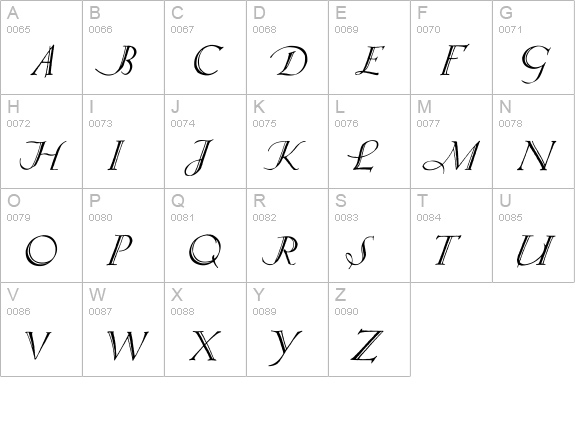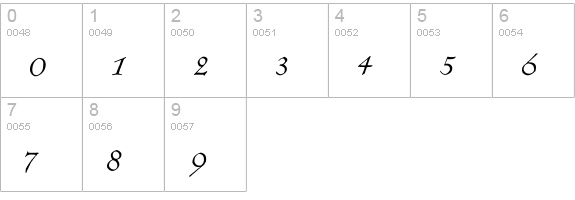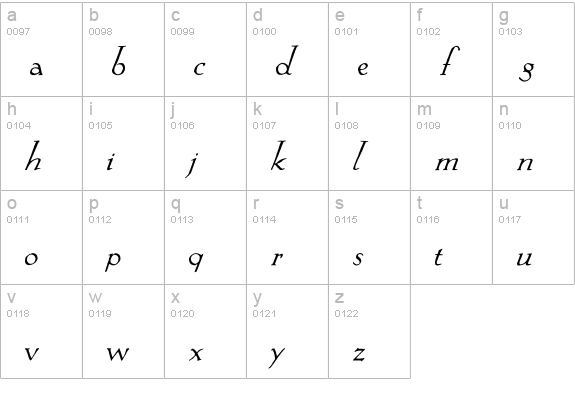
Introducing Springtime, a refreshing and vibrant font that perfectly captures the essence of the season. With its lively and playful curves, Springtime exudes a sense of joy and renewal, making it the perfect choice for any project that calls for a touch of whimsy. This delightful font offers a wide range of versatility, lending itself beautifully to everything from greeting cards and invitations to logos and branding materials. Its clean and legible letterforms ensure readability across various sizes and mediums, while its unique personality adds a touch of charm to any design. But what truly sets Springtime apart is not just its stunning aesthetics, but also its accessibility. This font is freely available to download at FontsMarket.com, allowing designers, creatives, and enthusiasts alike to effortlessly access and incorporate it into their projects. Whether you're a seasoned professional or a passionate hobbyist, Springtime offers a world of creative possibilities at your fingertips. So why wait? Embrace the spirit of springtime and infuse your designs with a breath of fresh air. Download Springtime today from FontsMarket.com and let your creativity bloom!